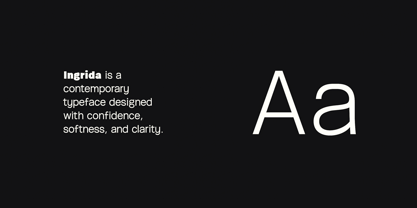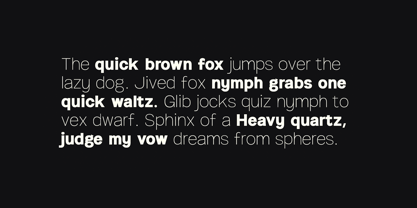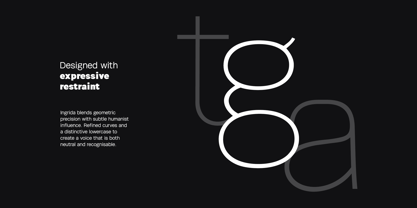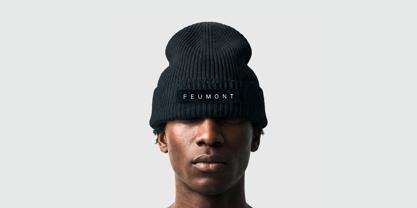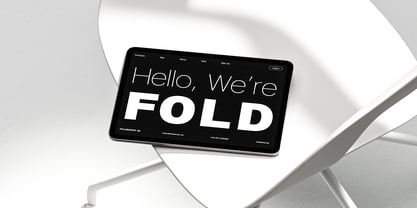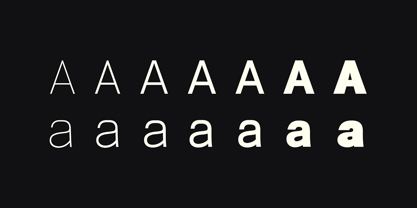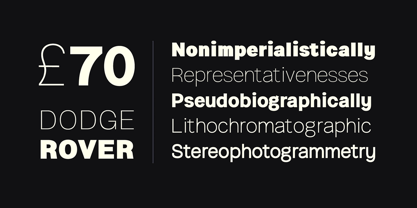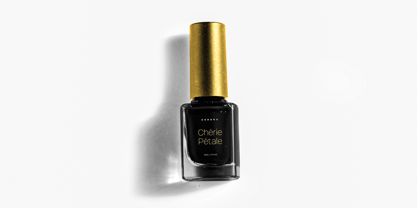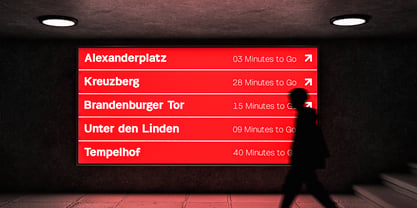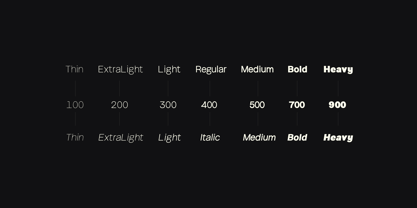
Ingrida
von Designova
Die Schriftfamilie Ingrida wurde von Jean Johnson entworfen und von Designova veröffentlicht. Ingrida enthält 22 Stile. Mehr über diese Familie
ABOUT THE TYPEFACE: Ingrida is a contemporary sans serif typeface designed with clarity, balance, and refined minimalism at its core. With its smooth curves, open forms, and confident geometry, Ingrida delivers a clean yet distinctive voice across both digital and print environments. Crafted for modern designers, brands, and creatives, this typeface blends functionality with subtle personality - making it equally suitable for bold headlines and elegant body text. The inclusion of upright and italic styles adds versatility, allowing for expressive typographic compositions while maintaining visual harmony. Whether used in branding, editorial layouts, or UI design, Ingrida brings a polished and professional aesthetic to every project. Ingrida offers 14 fonts, including 7 weights of upright styles and their matching italics. It has been crafted with powerful OpenType features, providing an extensive character set with 319 glyphs that support over 100 languages. This typeface is well-suited for graphic design, display, branding, and marketing applications. It performs exceptionally well for web, social media, digital marketing, signage, corporate materials, and editorial design. With additional letter spacing, Ingrida becomes the ideal choice for minimal headlines and logotypes, as demonstrated in the attached promotional designs. Designed with meticulous attention to detail, each weight includes support for Western European, Central European, and South Eastern European languages, offering a total of 357 glyphs. FEATURES: The Ingrida font family includes 14 fonts in total, with seven upright weights and Italic equivalents of all seven weights as follows: Thin Thin Italic ExtraLight Italic Light Light Italic Regular Italic Medium Medium Italic Bold Bold Italic Heavy Heavy Italic 319 GLYPHS INCLUDED: Handcrafted and designed with powerful OpenType features in mind, each weight includes extended language support with Western European, Central European, and South Eastern European sets. A total of 319 glyphs are available. EXTENSIVE LANGUAGE SUPPORT: The typeface supports 100+ languages: Afrikaans • Albanian • Asu • Basque • Bemba • Bena • Catalan • Cebuano • Chiga • Colognian • Cornish • Corsican • Danish • Dutch • Embu • English • Estonian • Filipino • Finnish • French • Friulian • Galician • German • Gusii • Haitian Creole • Hungarian • Ido • Indonesian • Interlingua • Irish • Iskonawa • Italian • Javanese • Jju • Kabuverdianu • Kalaallisut • Kalenjin • Kamba • Kikuyu • Kinyarwanda • Lojban • Luo • Luxembourgish • Luyia • Machame • Makhuwa-Meetto • Makonde • Malagasy • Malay • Manx • Māori • Meru • Morisyen • North Ndebele • Northern Sotho • Norwegian Bokmål • Norwegian Nynorsk • Nyanja • Nyankole • Occitan • Oromo • Portuguese • Romansh • Rombo • Rundi • Rwa • Samburu • Sango • Sangu • Sardinian • Scottish Gaelic • Sena • Shambala • Shipibo-Konibo • Shona • Slovenian • Soga • Somali • South Ndebele • Southern Sotho • Spanish • Sundanese • Swahili • Swati • Swedish • Swiss German • Taita • Taroko • Teso • Tsonga • Tswana • Turkmen • Vunjo • Walloon • Welsh • Wolastoqey • Xhosa • Zulu Scripts: Latin